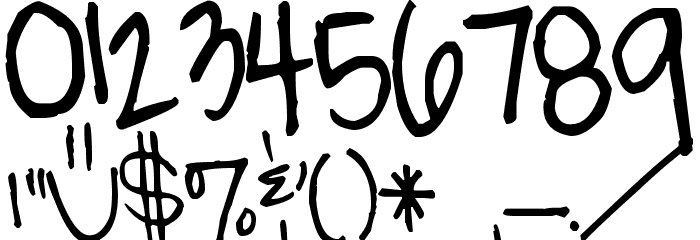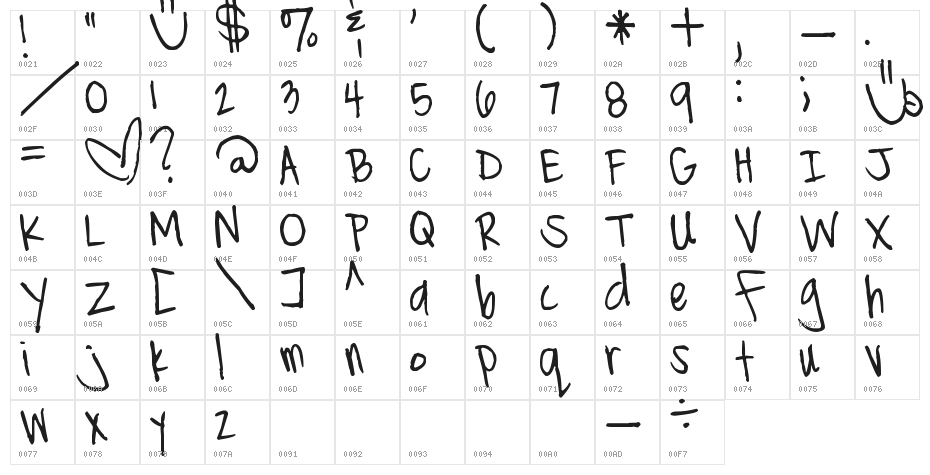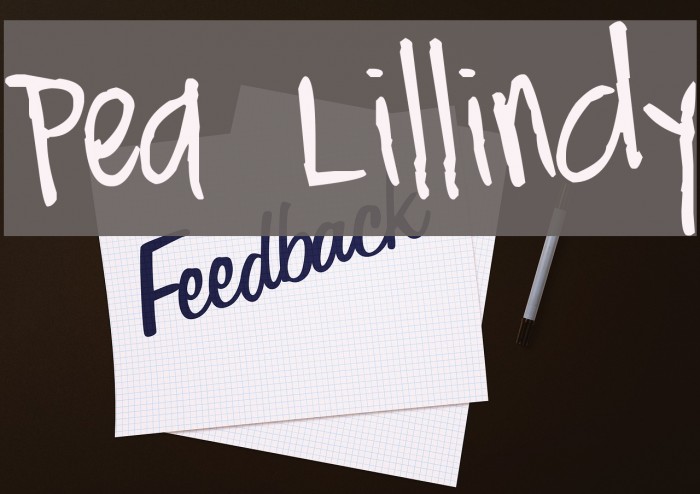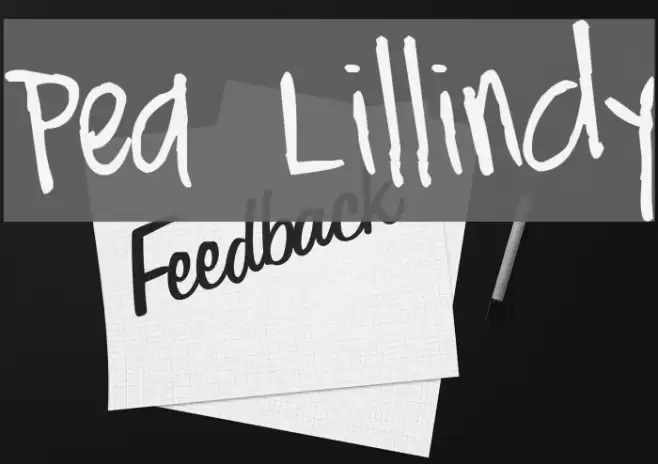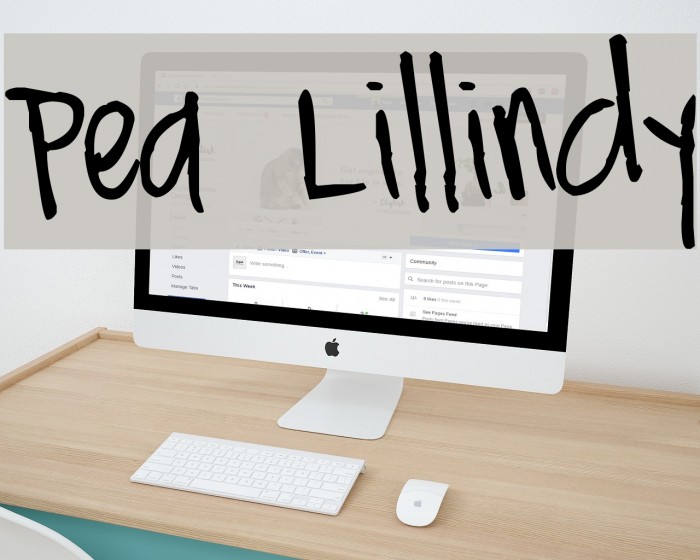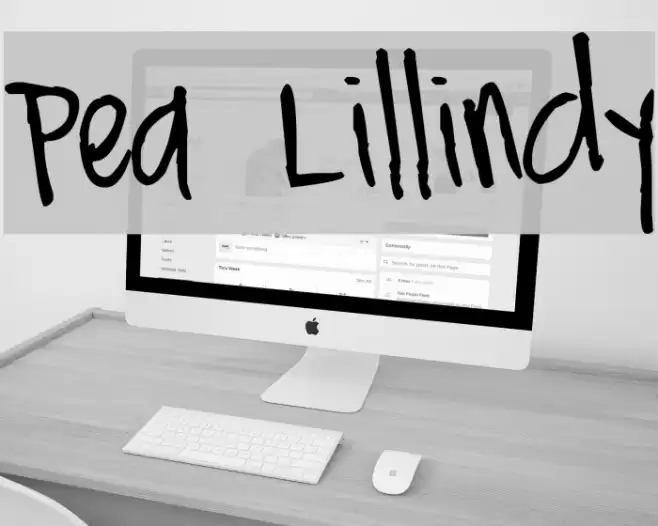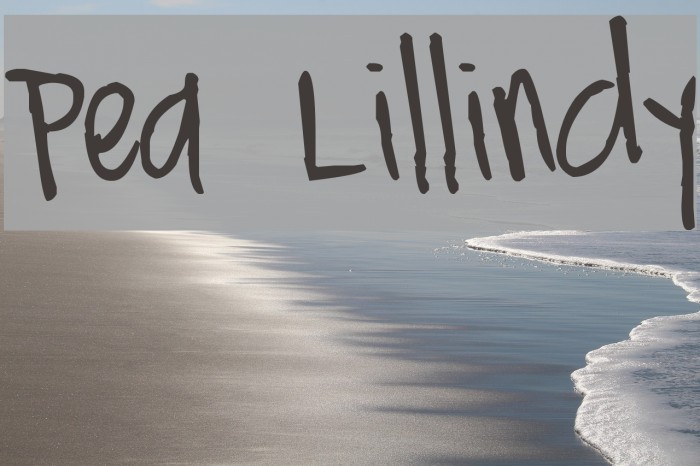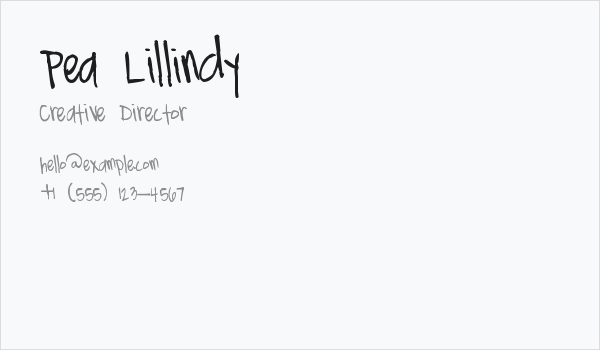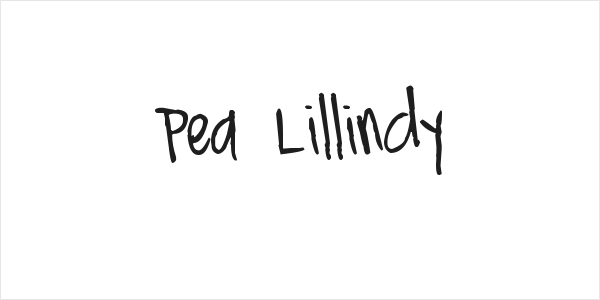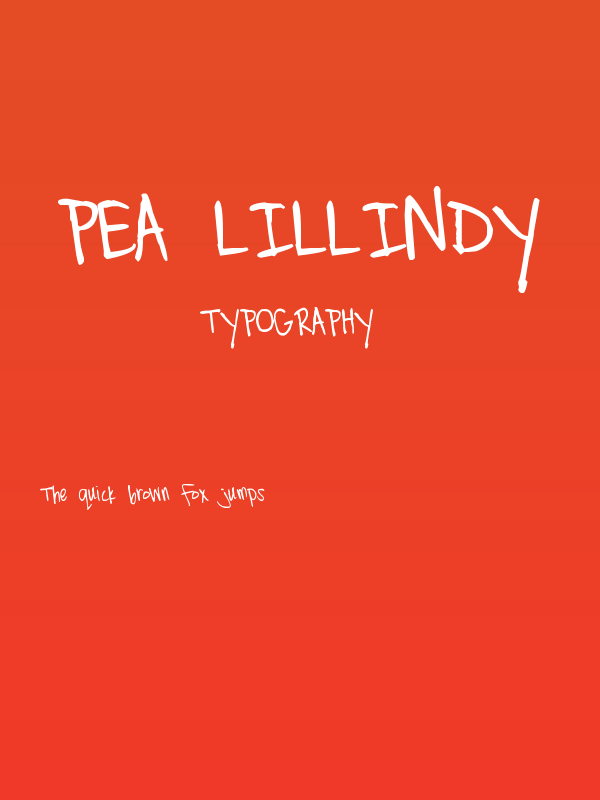
Pea Lillindy Font
Pea Lillindy Description
This font exudes a playful and informal handwritten style, characterized by its irregular and slightly whimsical strokes. The letters vary in height and slant, giving it a dynamic and lively appearance. The uppercase letters are bold and prominent, while the lowercase letters maintain a consistent flow with a touch of spontaneity. The numbers are distinct and easily readable, matching the overall casual aesthetic. Special characters are creatively integrated, adding to the font's charm and versatility. This font is ideal for projects that require a personal and approachable touch, such as greeting cards, invitations, or casual branding.